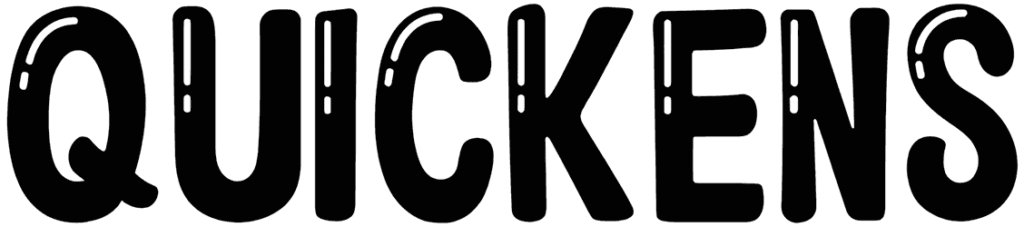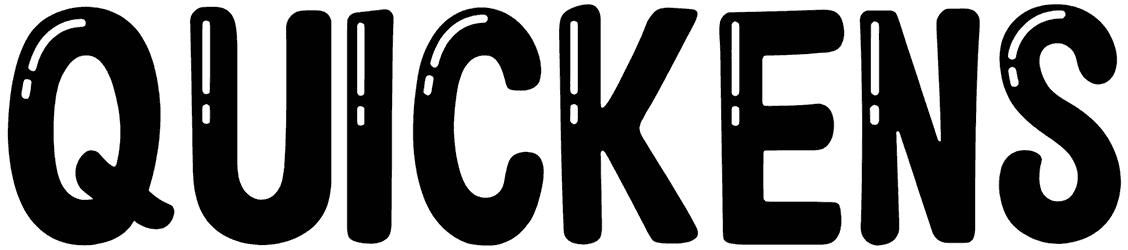
Quickens Font
Designing exclusive content for children is easier than ever with a cartoon font such as Quickens. It offers you two different versions of uppercase letters, so you can create posters, logos, flyers, branding, and banners with peace of mind. Although it doesn’t support lowercase letters, it carries a sense of friendliness, childhood, innovation, and sympathy.